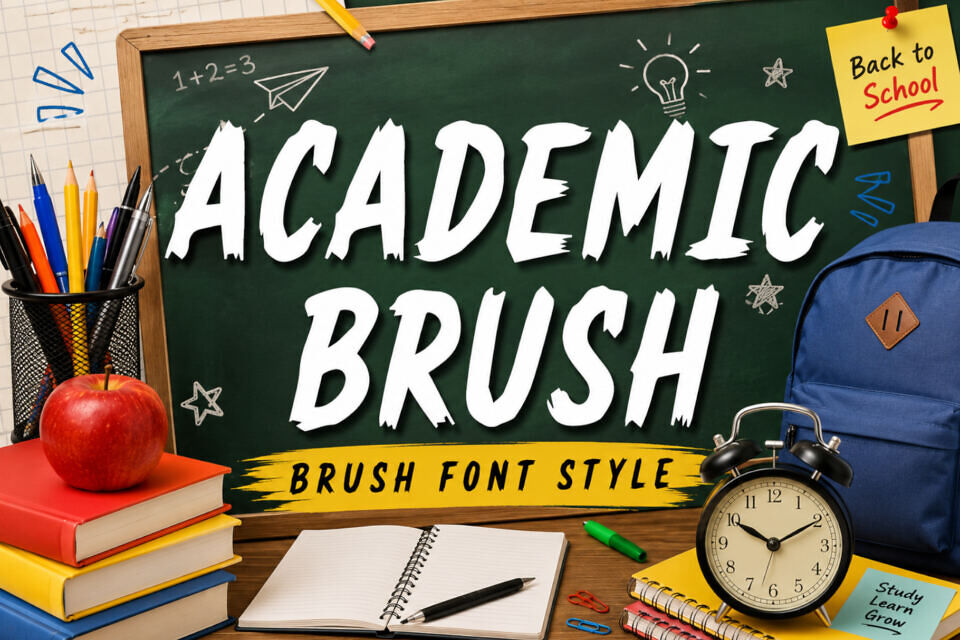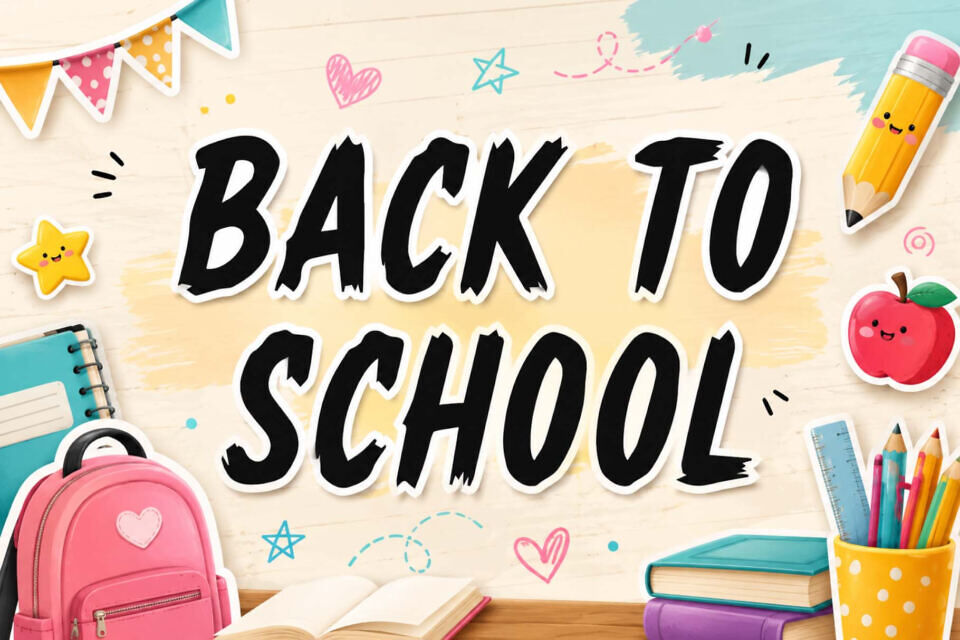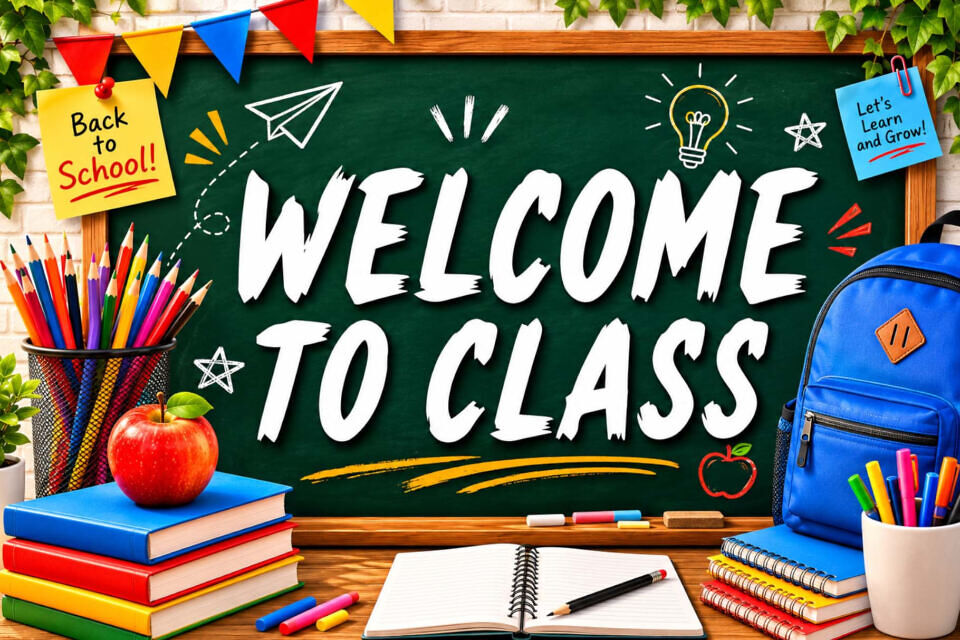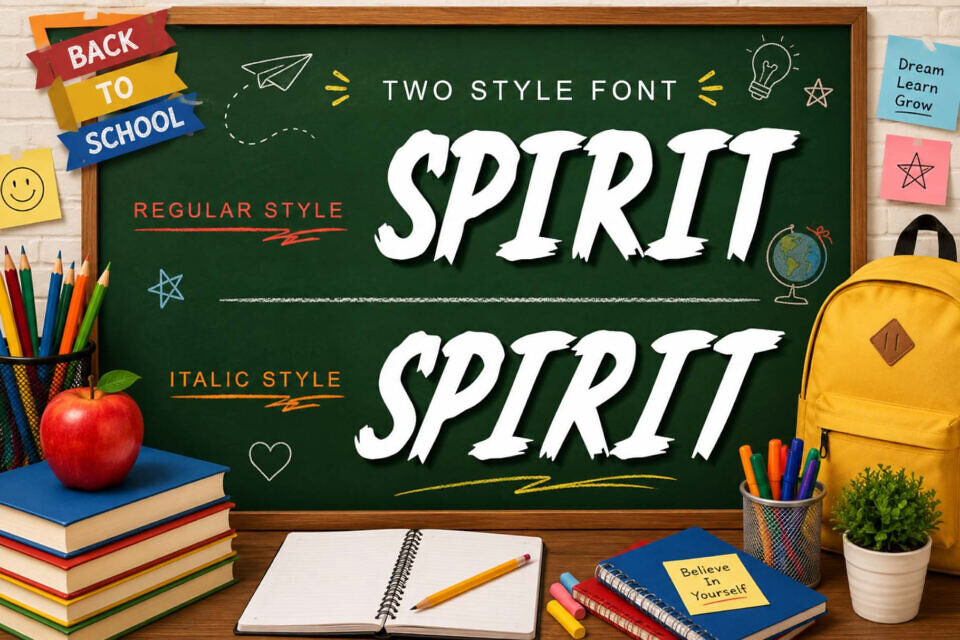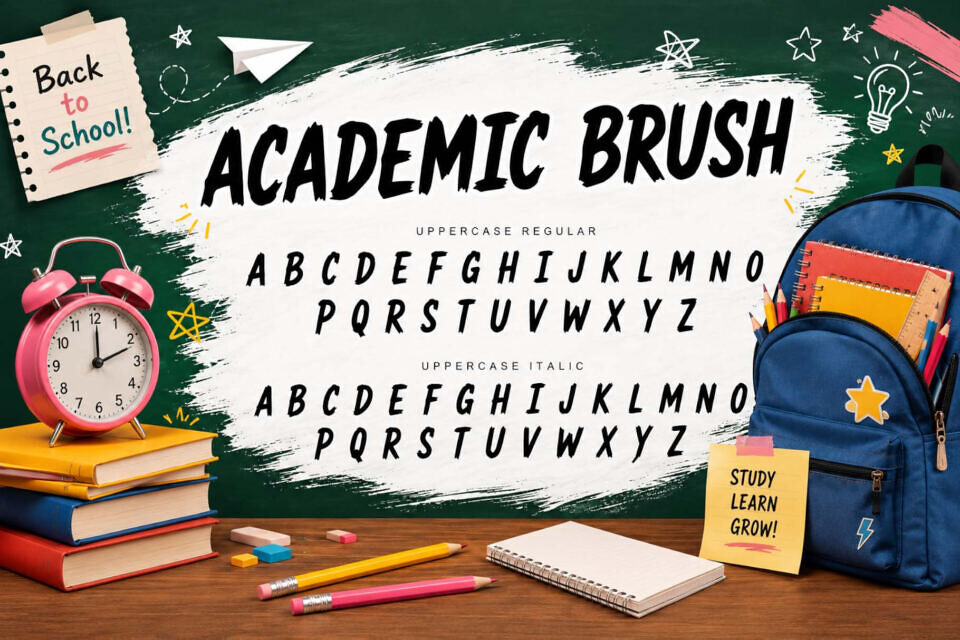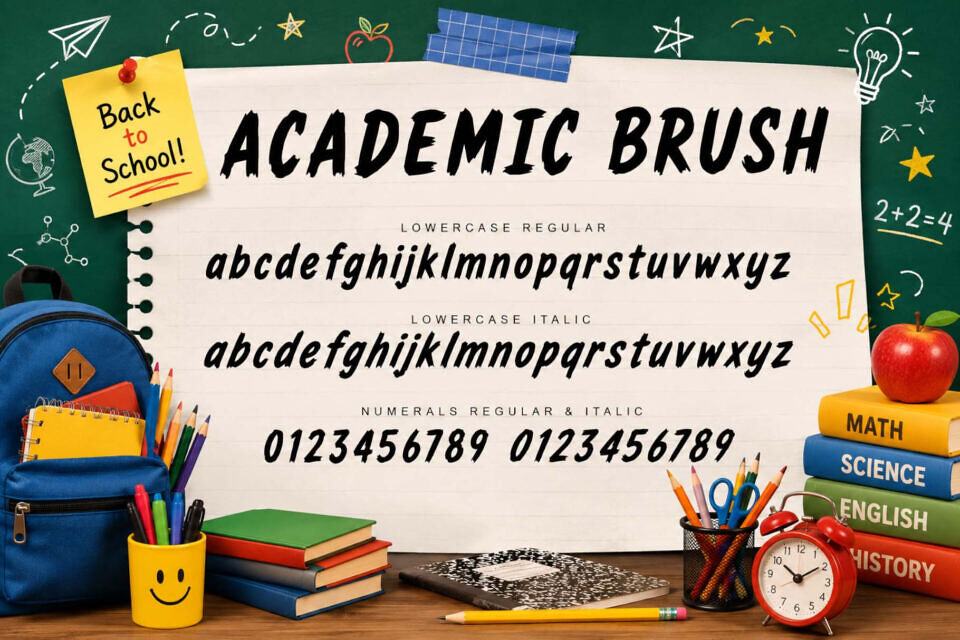
Academic Brush Font
Academic Brush is a bold and energetic brush font, inspired by the excitement of back-to-school adventures. The hand-painted strokes create a fun, cheerful, and eye-catching look for any creative project.
Perfect for classroom designs, educational posters, school merchandise, stickers, and printable crafts. Add a fresh, youthful, and creative touch to your designs with this unique brush font style.